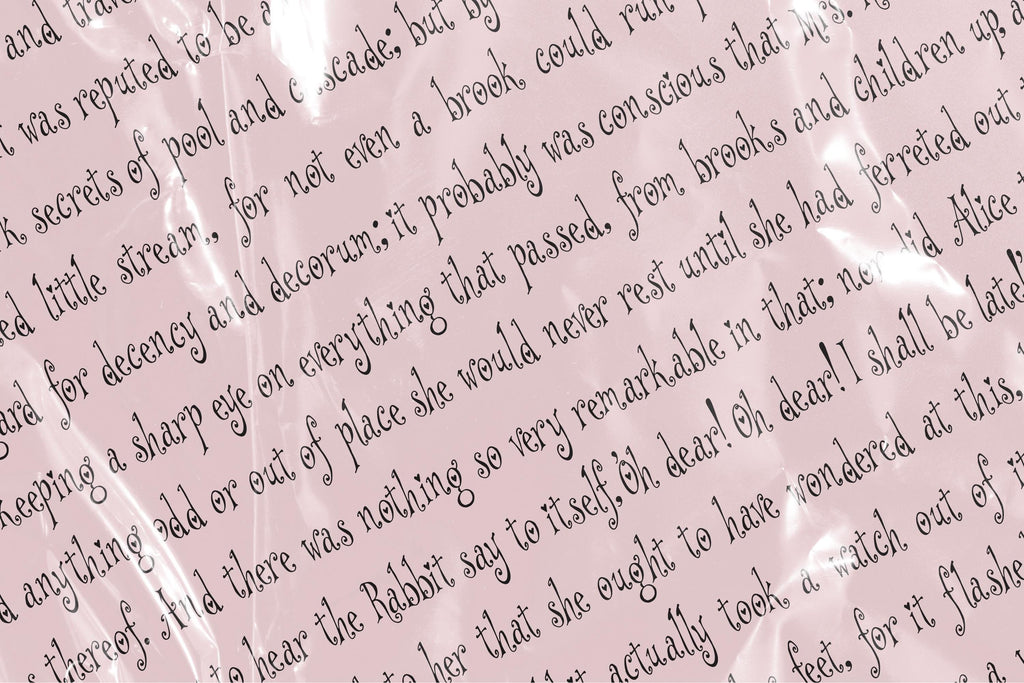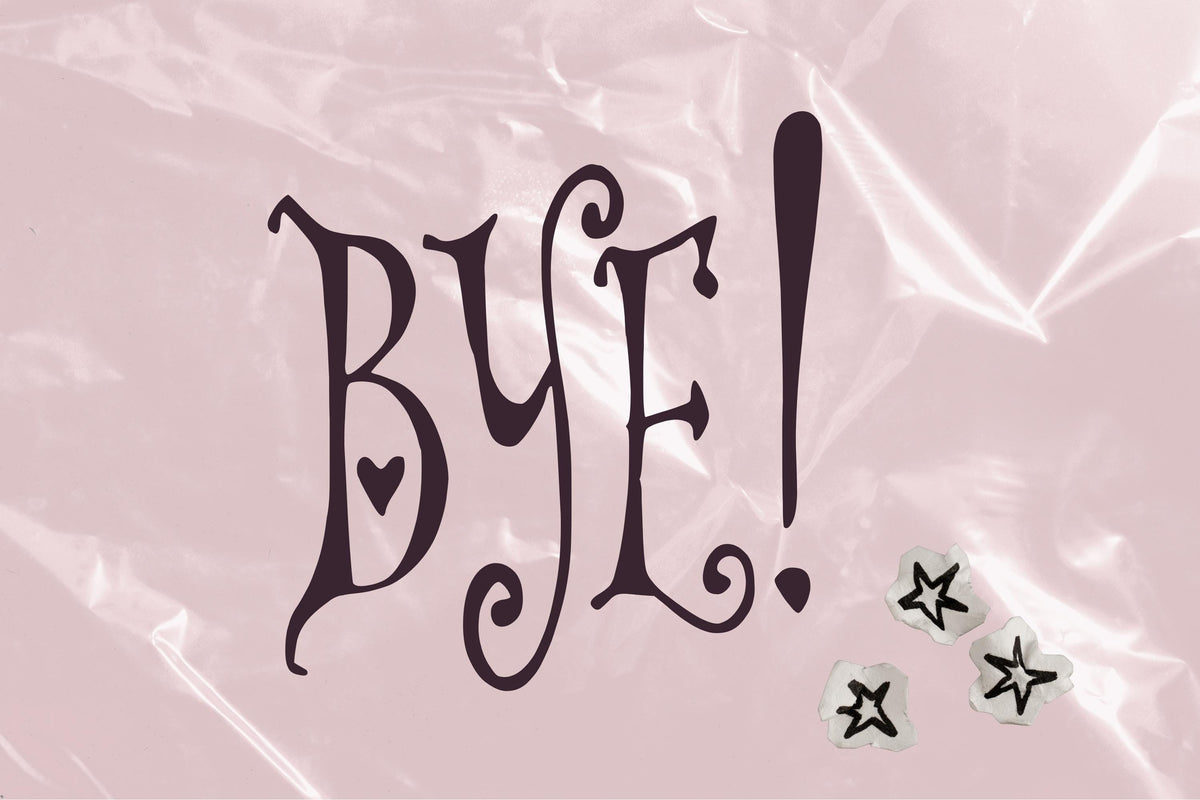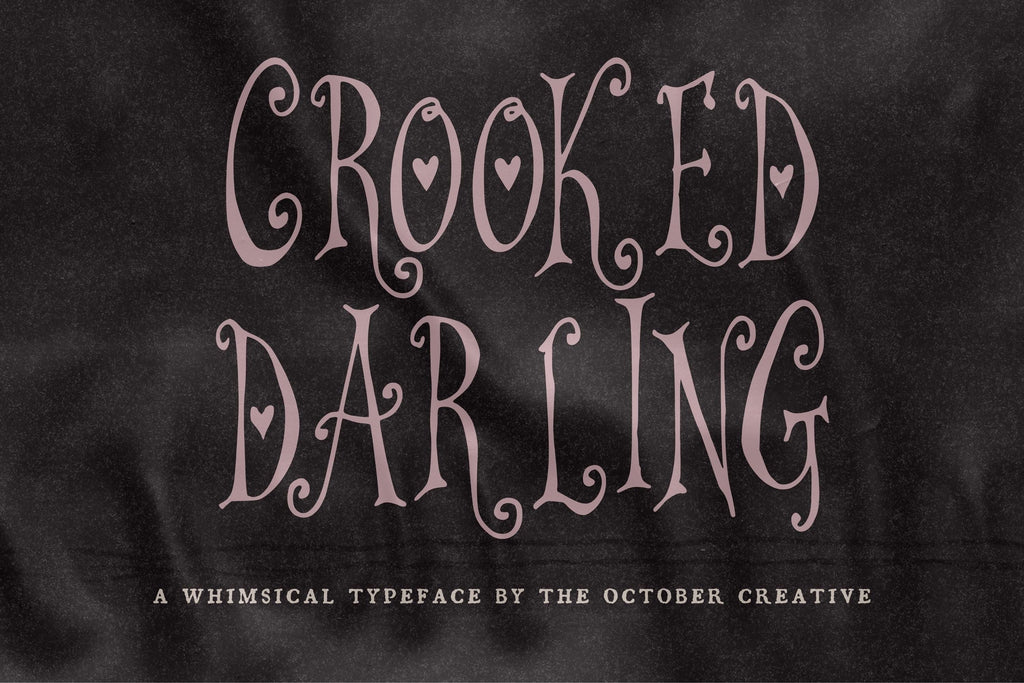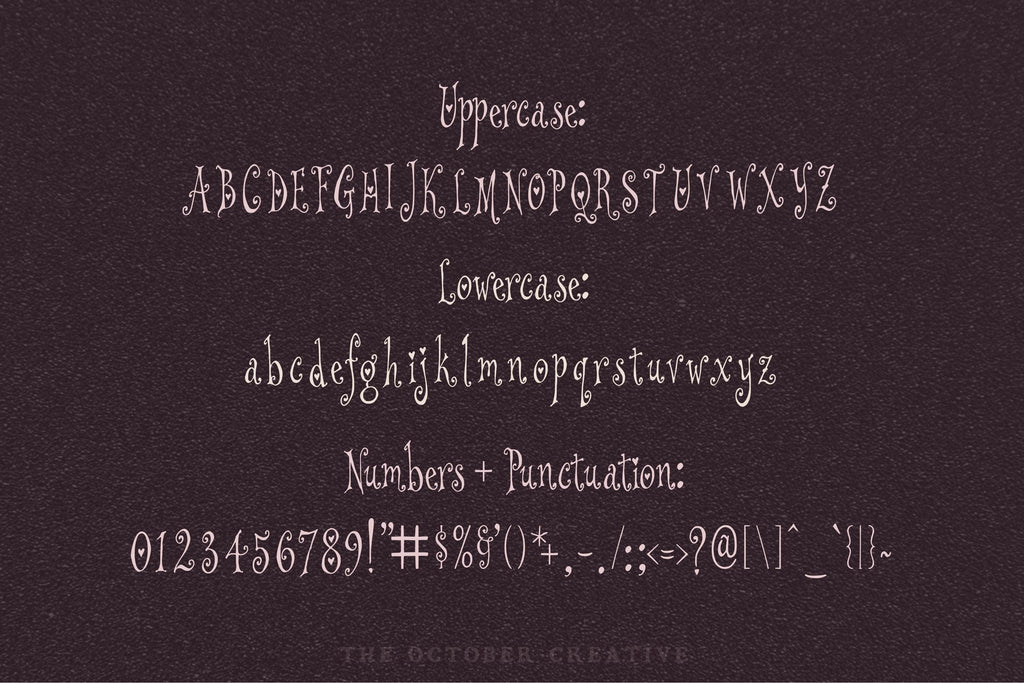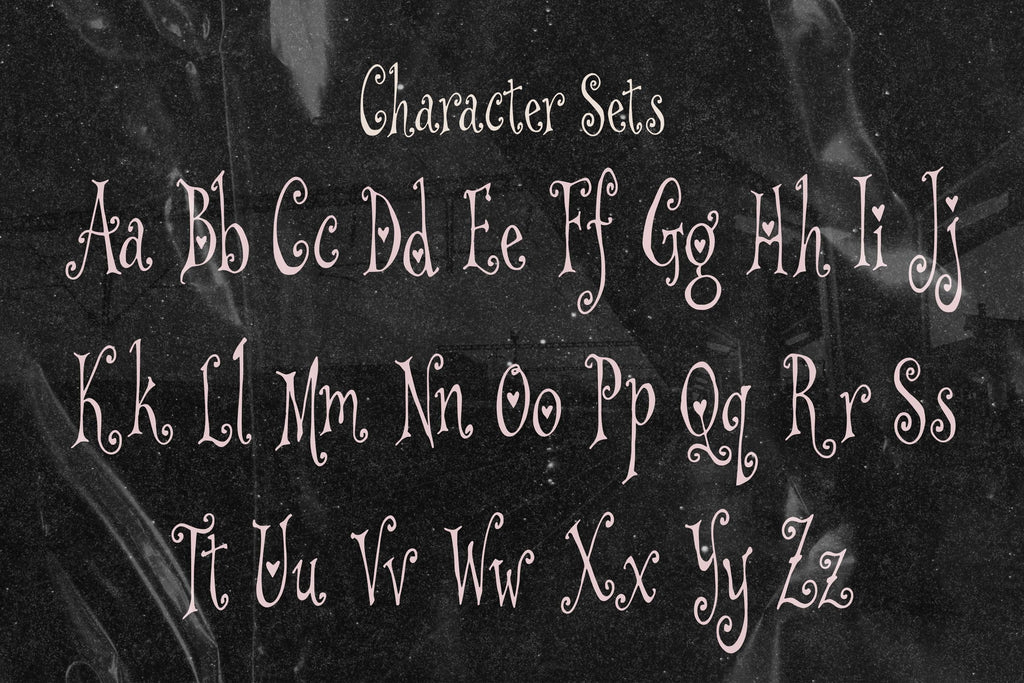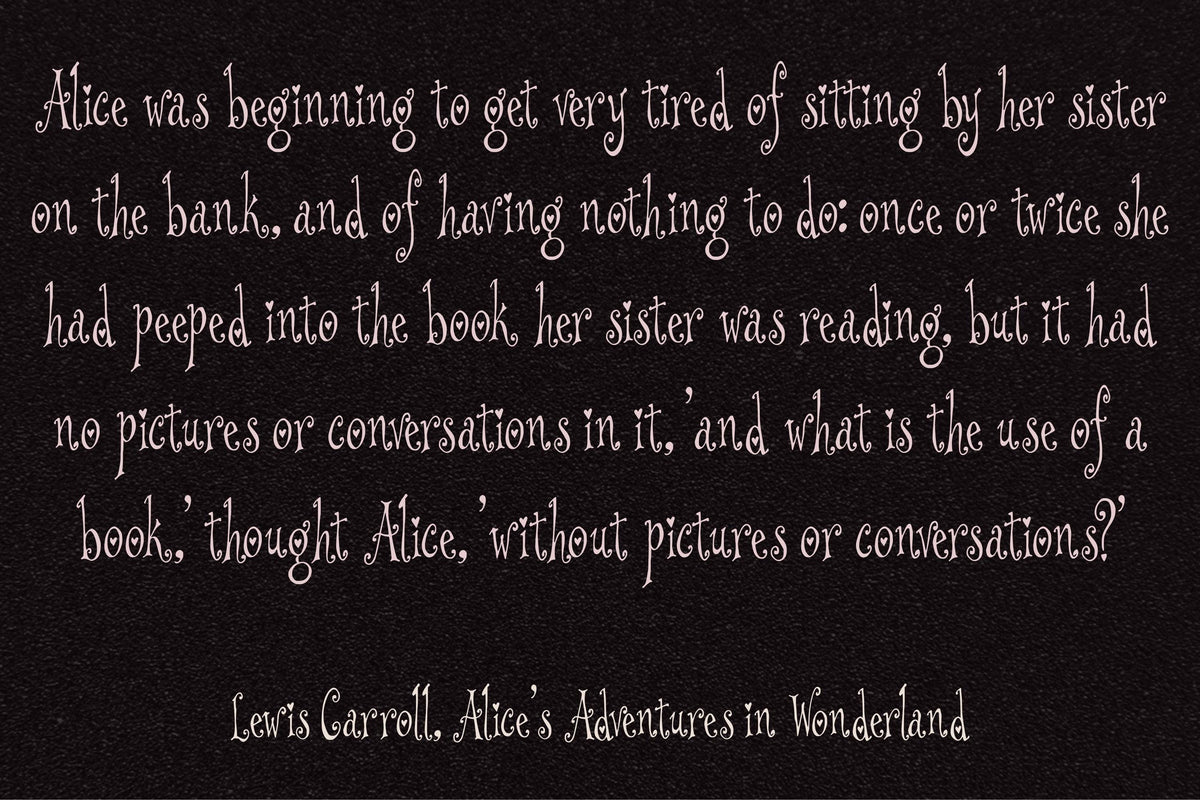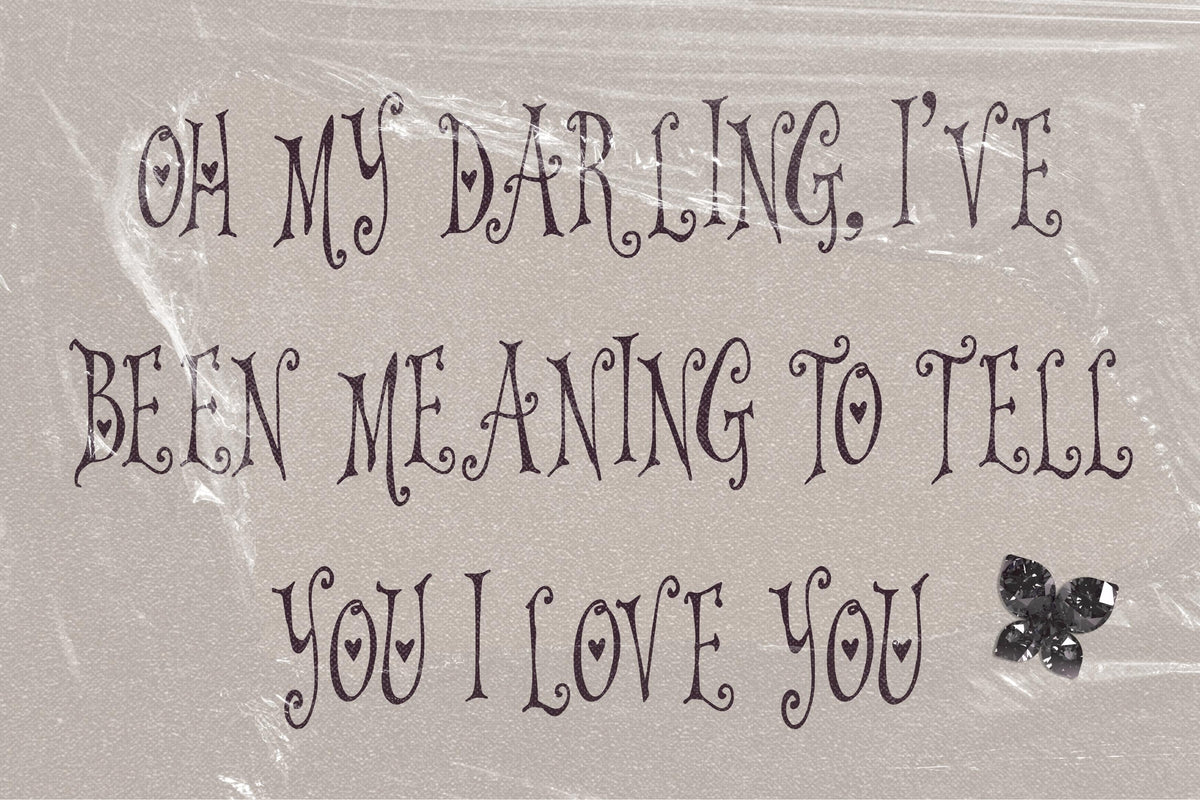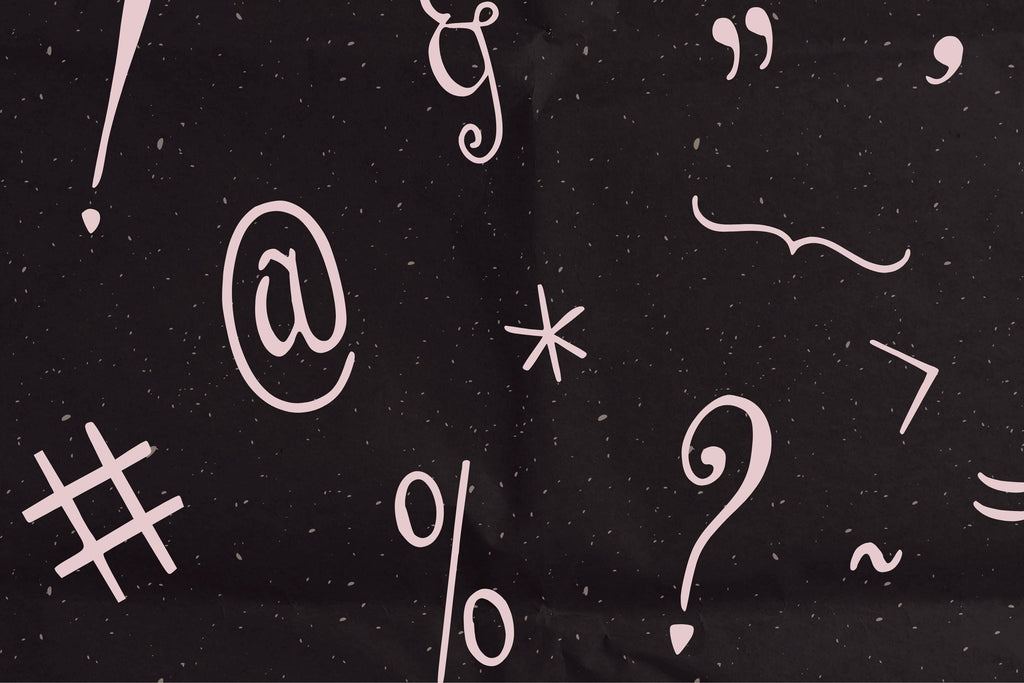
Crooked Darling Font
Crooked Darling wears its little hearts right in the lettering, tucked into letters and perched above the i and j. Its fine lines and charming wobble make a sweet match for love notes, Valentine's cards, and labels for something you've made for your favorite person.